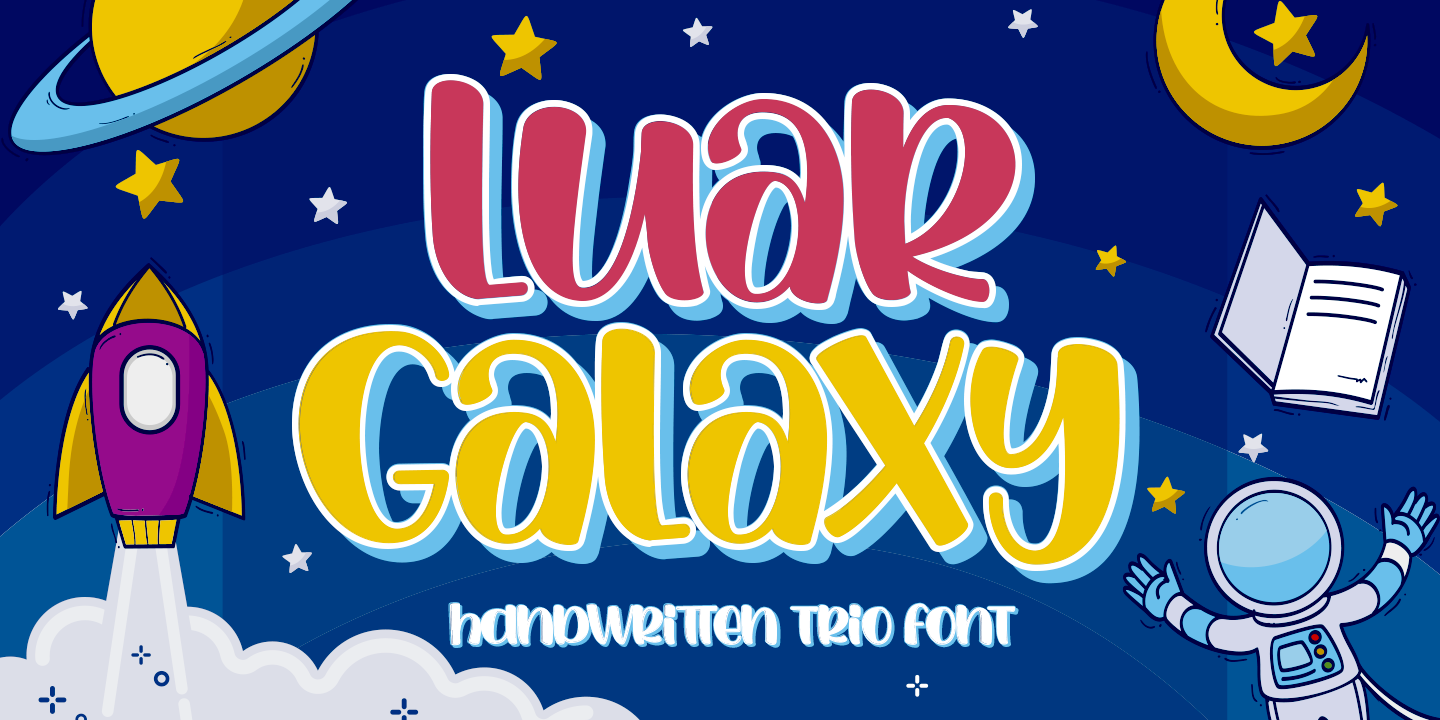
Luar Galaxy Font is perfect for space exploration branding, sci-fi movie titles, astronomical observatory materials, planetarium exhibition graphics, cosmic-themed gaming interfaces, stellar research presentations, space tourism marketing campaigns, futuristic technology packaging, lunar mission documentation, and celestial event promotional materials.
What makes Luar Galaxy Font so exciting is its extraordinary ability to capture the infinite wonder and cosmic grandeur of outer space through luminously crafted letterforms that seem forged from starlight and shaped by the gravitational forces of distant galaxies spinning through the endless void. This font embodies the essence of astronomical discovery and interstellar adventure, featuring ethereal characters that appear to glow with the mysterious energy of nebulae and pulsars scattered across the cosmic tapestry. The celestial letter shapes create an atmosphere of scientific wonder and limitless exploration, making every word feel like it's transmitted from deep space missions and carries the profound excitement of humanity's greatest journey into the unknown.
The Luar Galaxy Font family includes Ultra Light, Light, Regular, Medium, Bold, and Black weights, along with glowing and constellation variations. Each style maintains the font's distinctive cosmic character while offering versatility for different astronomical applications, from subtle space mission text to radiant headlines that announce breakthrough discoveries in our quest to understand the universe.
This mesmerizing typeface brings authentic space exploration aesthetics to contemporary design projects. The Luar Galaxy Font Free Download provides designers with an exceptional tool to create memorable brand identities that communicate wonder, exploration, and cosmic significance. Whether you're developing space technology branding, designing astronomical educational materials, or creating interstellar entertainment communications, this font delivers unmatched cosmic appeal and scientific sophistication.
The precisely engineered letterforms in Luar Galaxy Font feature flowing curves and stellar proportions that mirror the elegant mathematics governing planetary orbits and the graceful dance of celestial bodies across the night sky. Each character has been designed to maintain perfect clarity while expressing the awe-inspiring scale and beauty of cosmic phenomena that stretch beyond human comprehension. The font's otherworldly appearance makes it ideal for applications requiring genuine astronomical authority and space exploration credibility.
Space industry professionals appreciate how Luar Galaxy Font effortlessly communicates scientific excellence, cosmic wonder, and pioneering spirit while appealing to audiences fascinated by humanity's ongoing exploration of the final frontier and our place within the vast cosmic story. The comprehensive glyph set includes astronomical symbols, constellation patterns, cosmic elements, and extensive international language support, ensuring universal compatibility while maintaining its distinctive galactic identity. This makes it an invaluable resource for space agencies, astronomical institutions, planetariums, and any organization seeking typography that embodies the profound human drive to explore beyond our earthly boundaries and discover the magnificent secrets hidden within the infinite expanse of stars, galaxies, and cosmic wonders that surround our tiny blue planet in the endless ocean of space.